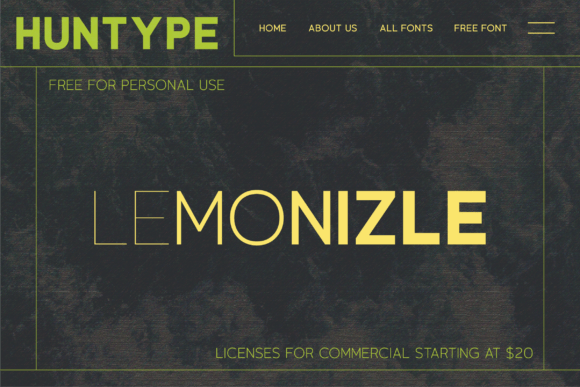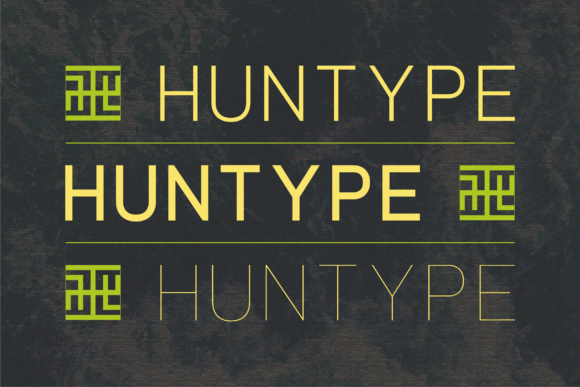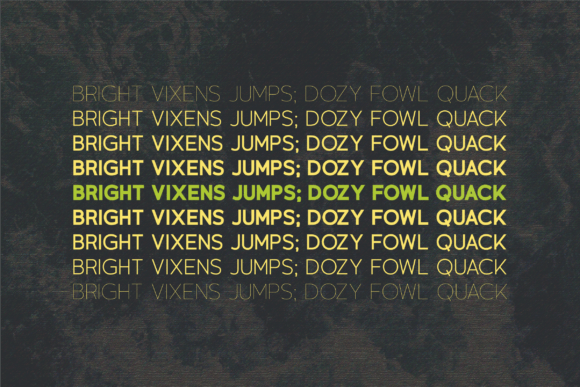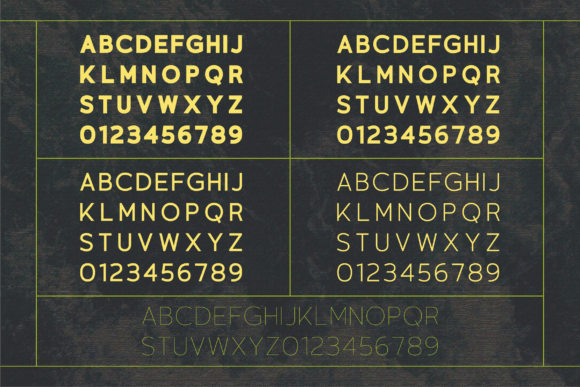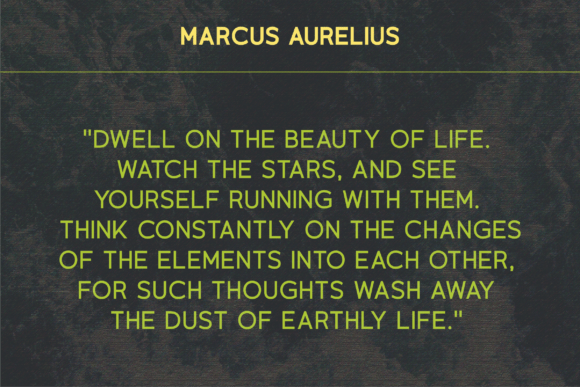
Introduction to Lemonizle Font
It is a modern and versatile font family, a blend of clean geometric forms and subtle sophistication.
Its adaptable style is evident in the precise letterforms and contemporary aesthetic A harmony of sharp lines and gentle curves.